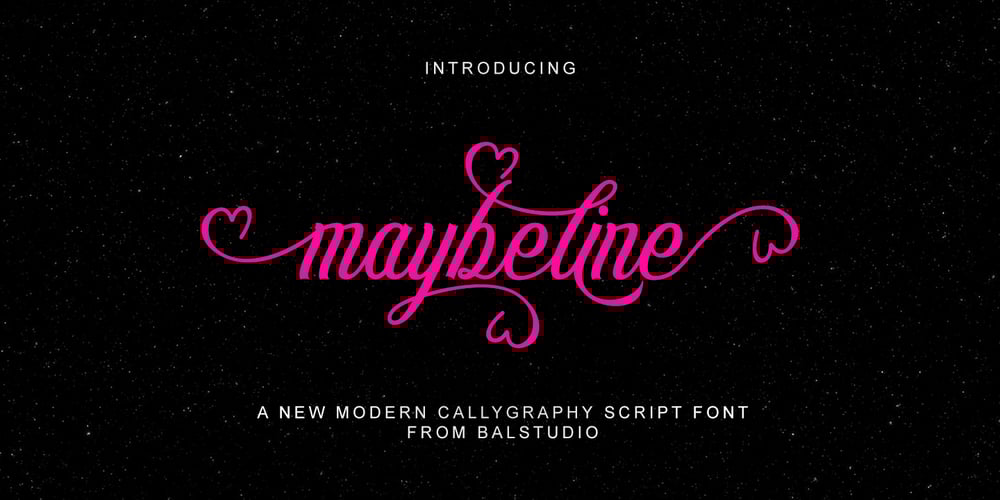
Maybeline Script Font Family was designed by Iqbal Amsar Hidayat and published by Bal Studio. Maybeline Script contains 1 styles and family package options. Thank you for viewing the Maybeline Script!Maybeline Script is a modern, handwritten, modern script font with an organic base, a style that’s romantic, fun, and catchy. has several alternatives with different doodles. It is more effective and efficient when used for your job design.Maybeline Script can make your text more attractive, suitable for wedding invitations, cards, letterheads, name boards, product packaging, labels, news, posters, badges, headers, signatures, t-shirt logos and so on.It features 317 glyphs, with OpenType features and style sets, as well as international support for most Western languages.Maybeline Script can be used for both Commercial and Personal projects.If you have any questions, feel free to contact me via email.Thank you!